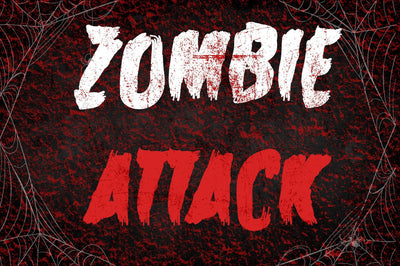
Zombie Attack Halloween Font
Zombie Attack Horror Brush Font.
Spooky Brush Horror Font.
Great for posters, logos, packaging, invitations, websites, T-Shirts and more.